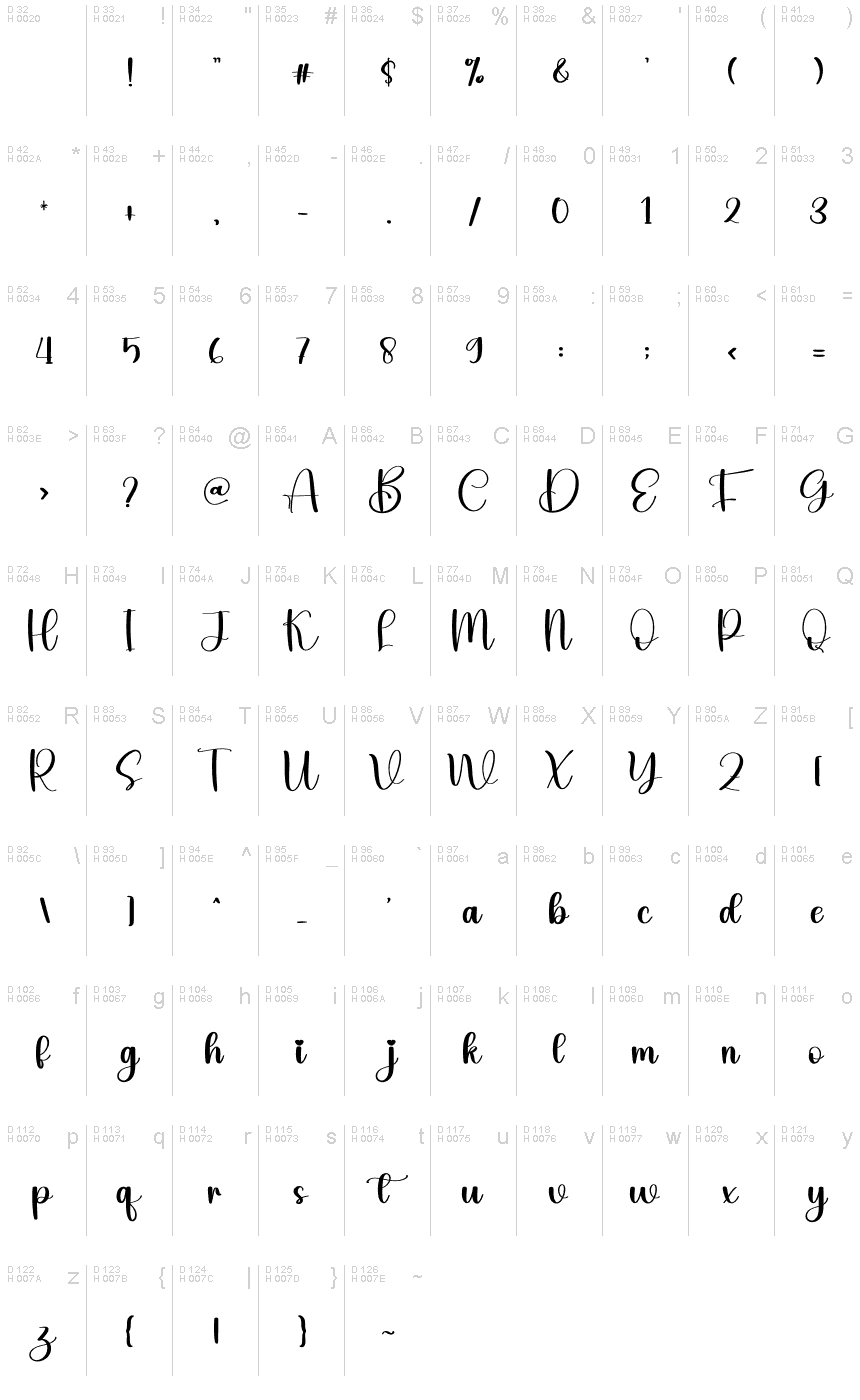
Back, designed by Inermedia Studio, offers a unique handwritten style that exudes charm and personality. The font's organic curves and flowing lines mimic the casual elegance of human penmanship, making it instantly warm and inviting. Its aesthetic appeal lies in the seamless blend of casual flair with meticulous design—each letter crafted to convey authenticity.
The handwritten quality of Back makes it an excellent choice for projects that require a personal touch. From bespoke invitations to branding materials that aim to be approachable and relatable, this font adds a handcrafted feel that is both stylish and distinctive. Its versatility extends to digital platforms as well, where it can soften the edges of the digital experience with its humanistic traits.
Back's gentle yet confident strokes suggest a font suitable for creative endeavors such as book covers, editorial headers, or any design project looking to convey intimacy and individuality. With its blend of aesthetic appeal and functional style, Back is not just a typeface but an artistic tool capable of elevating your message with both visual impact and emotional resonance.